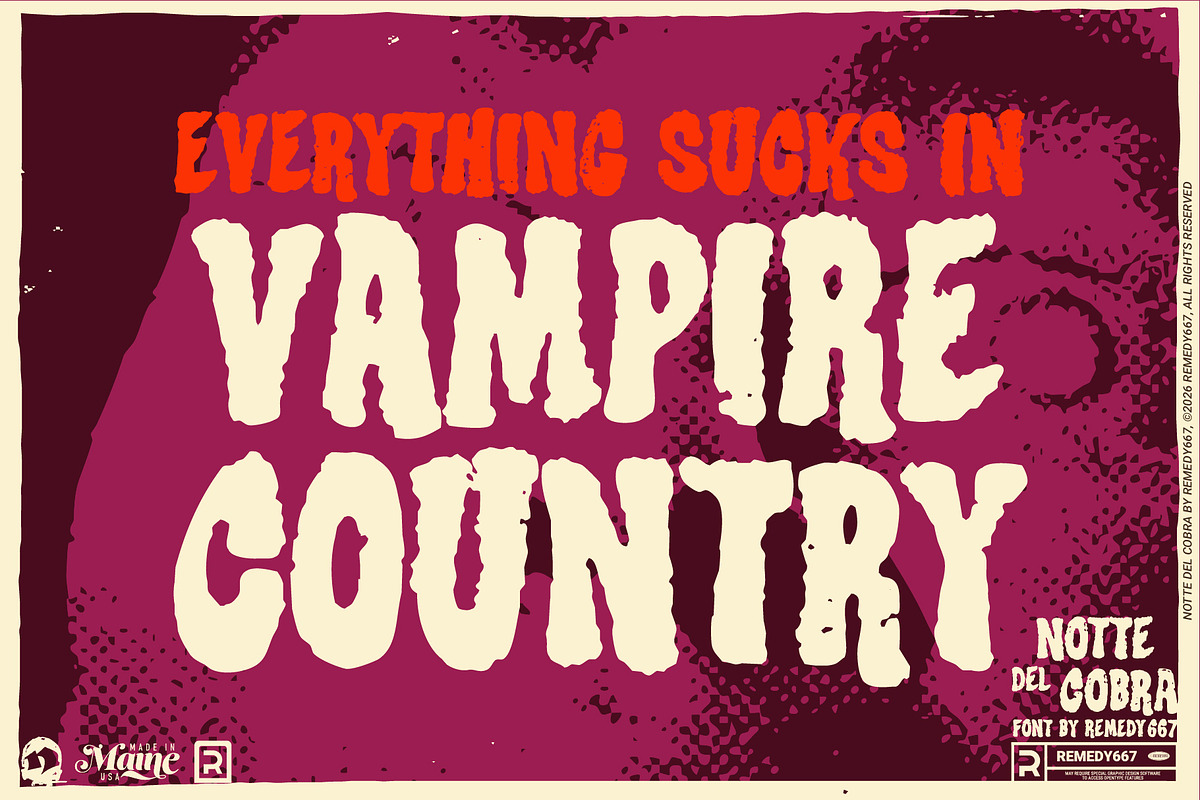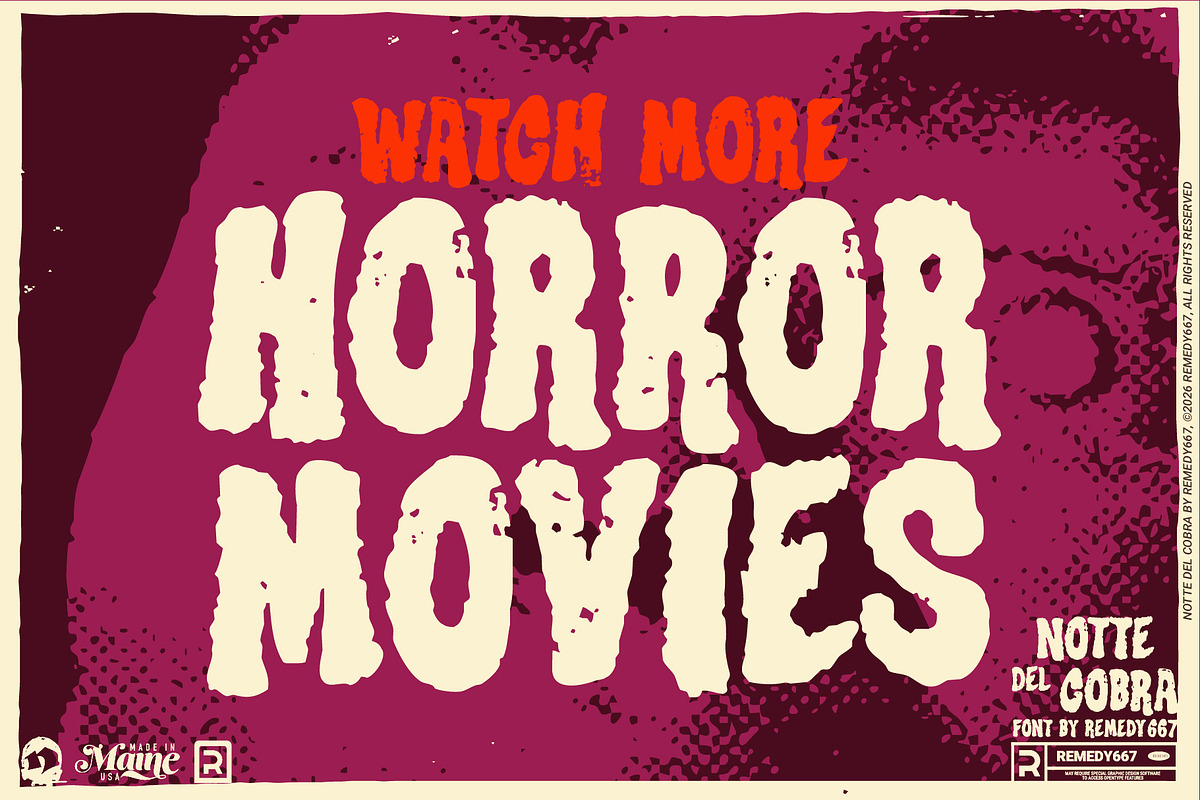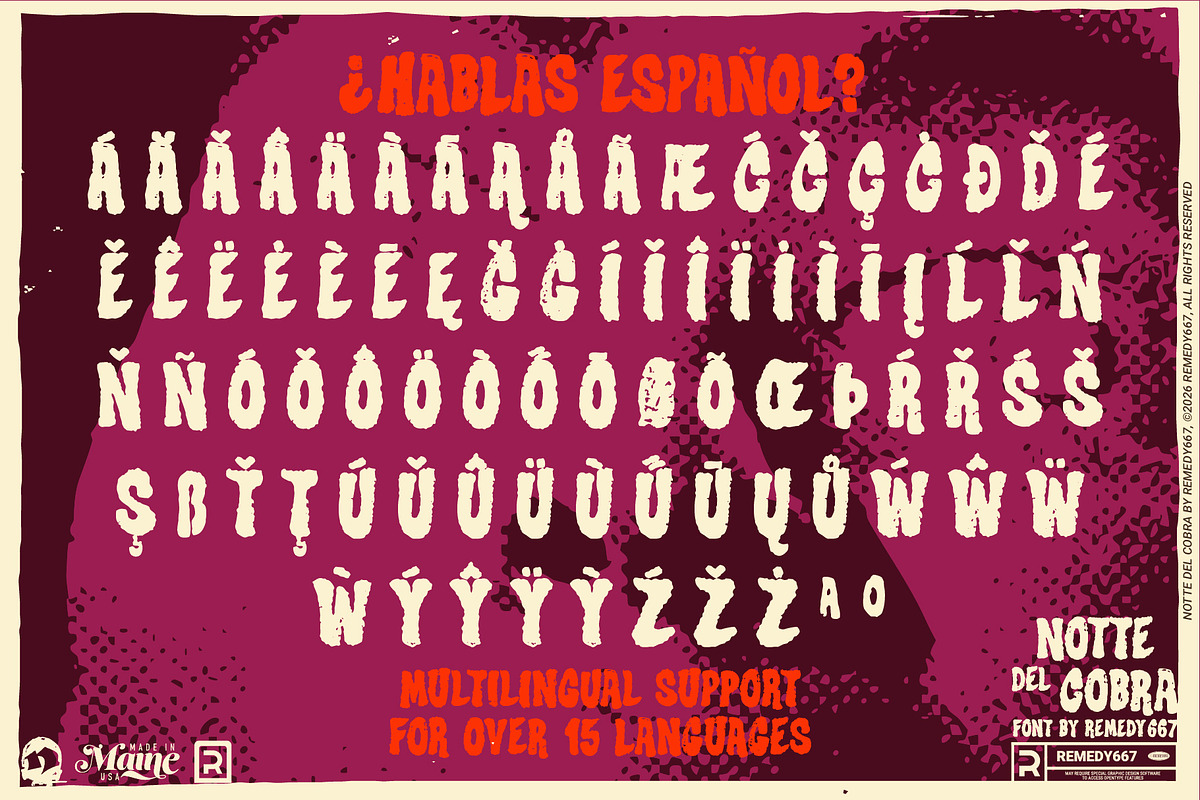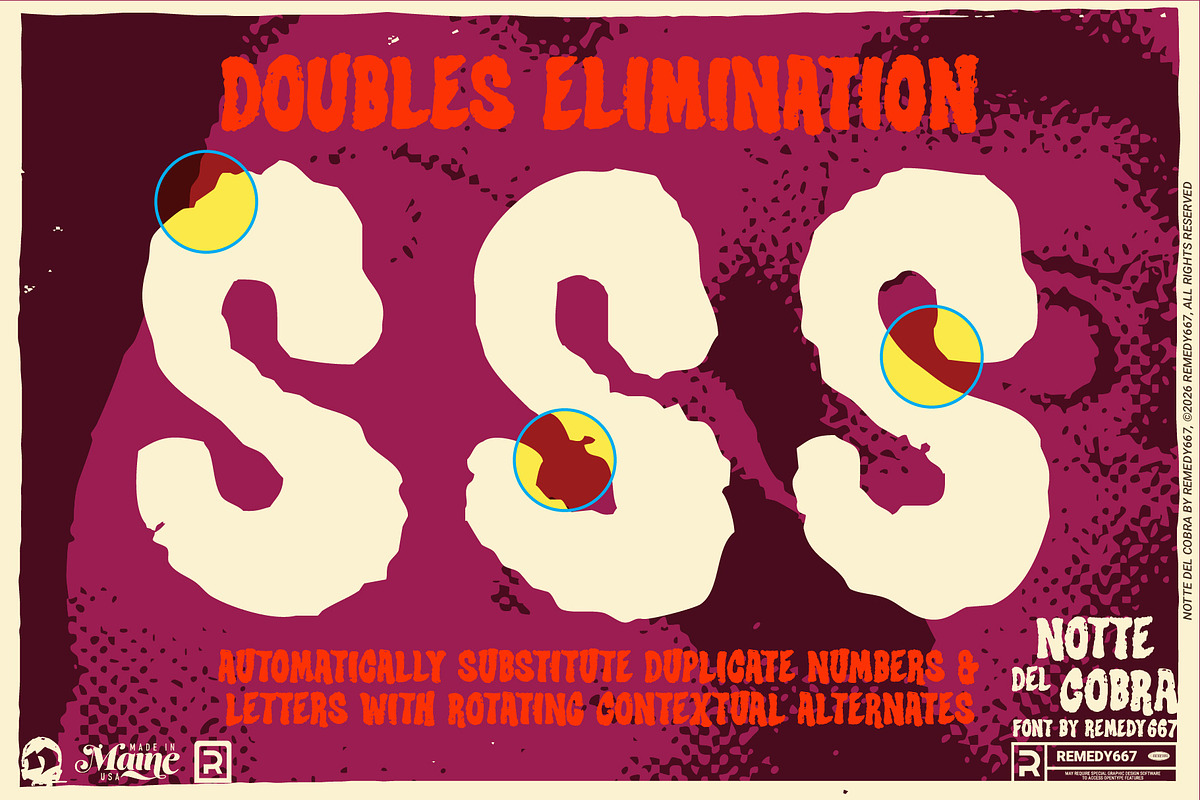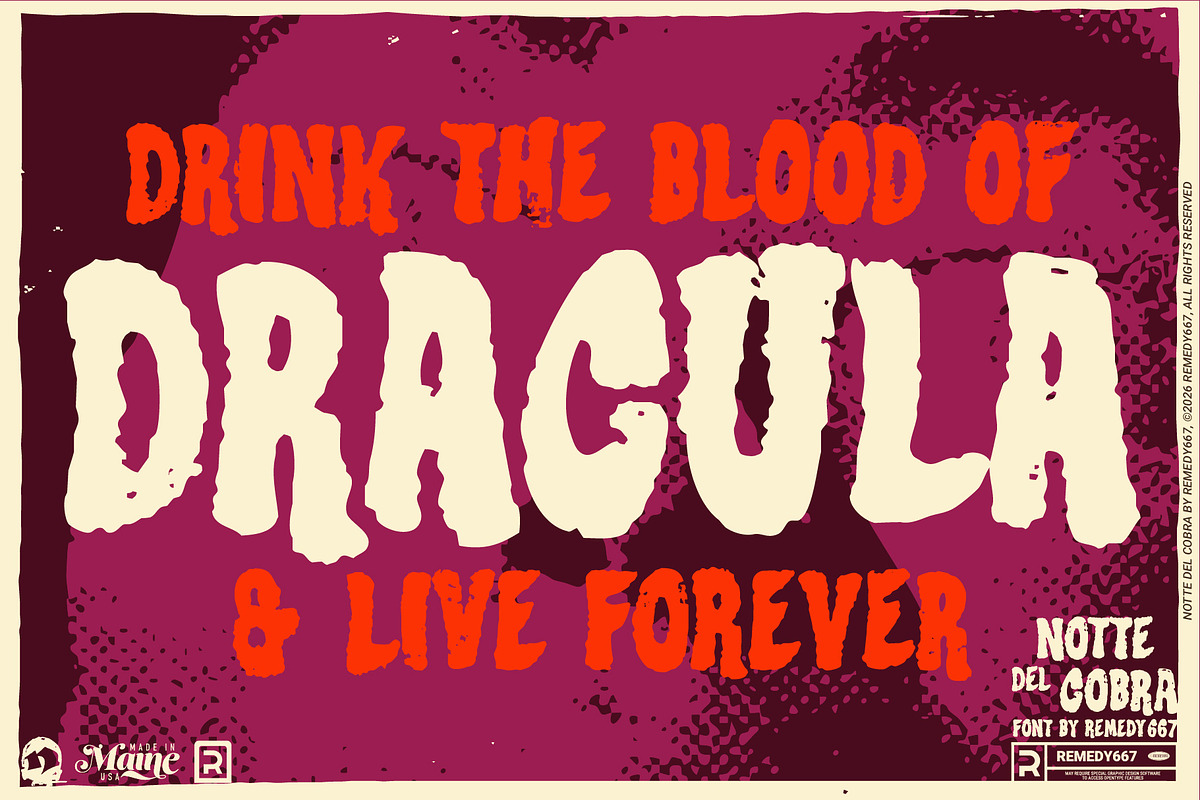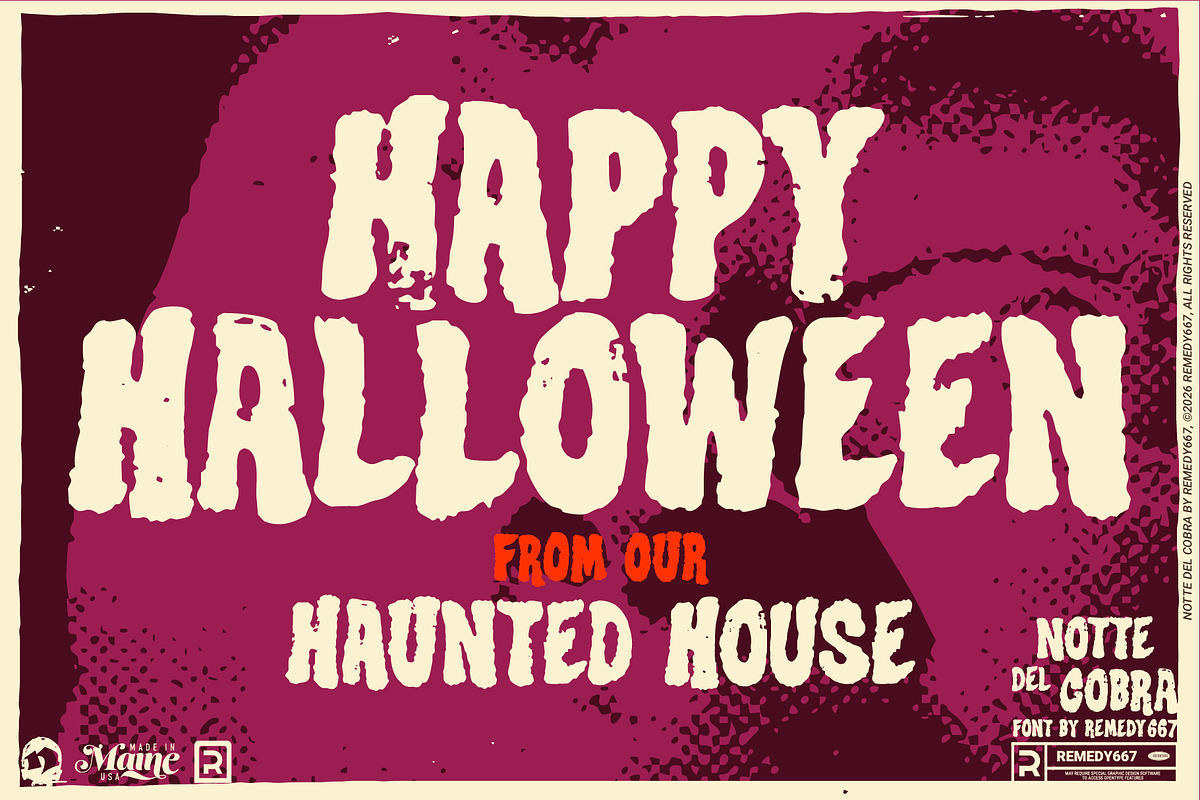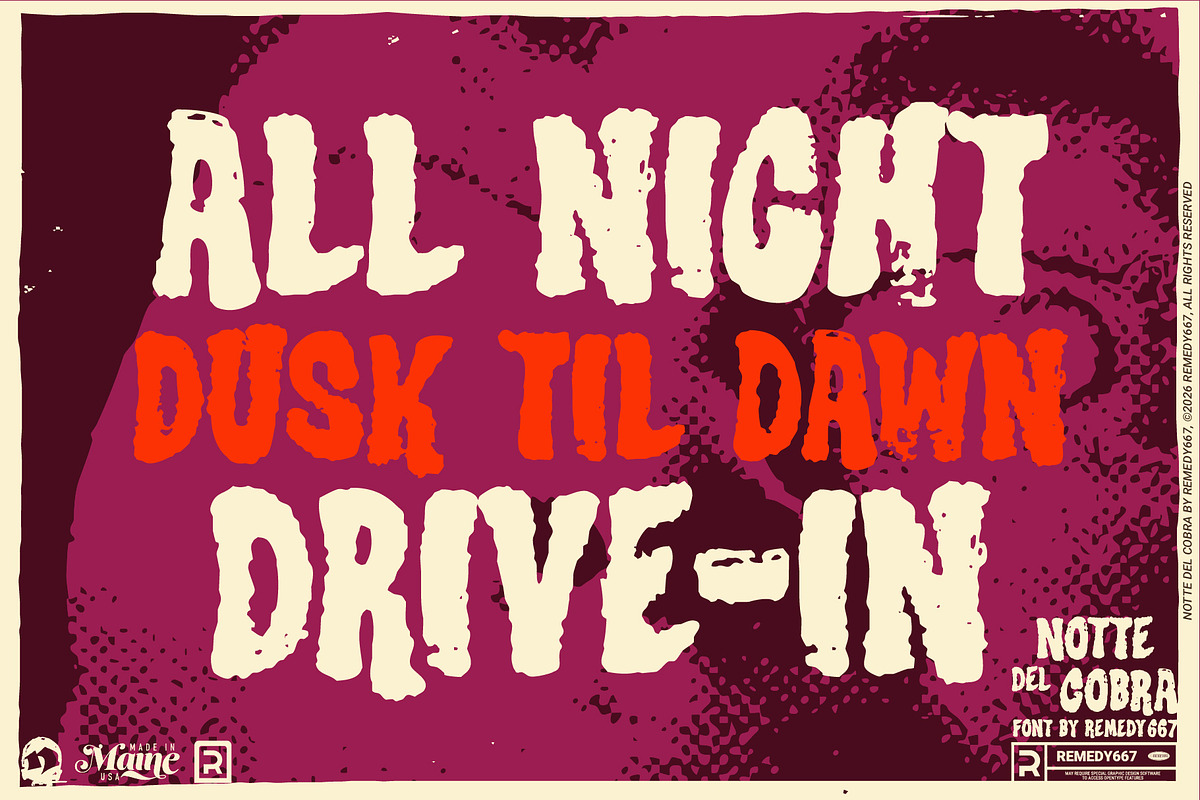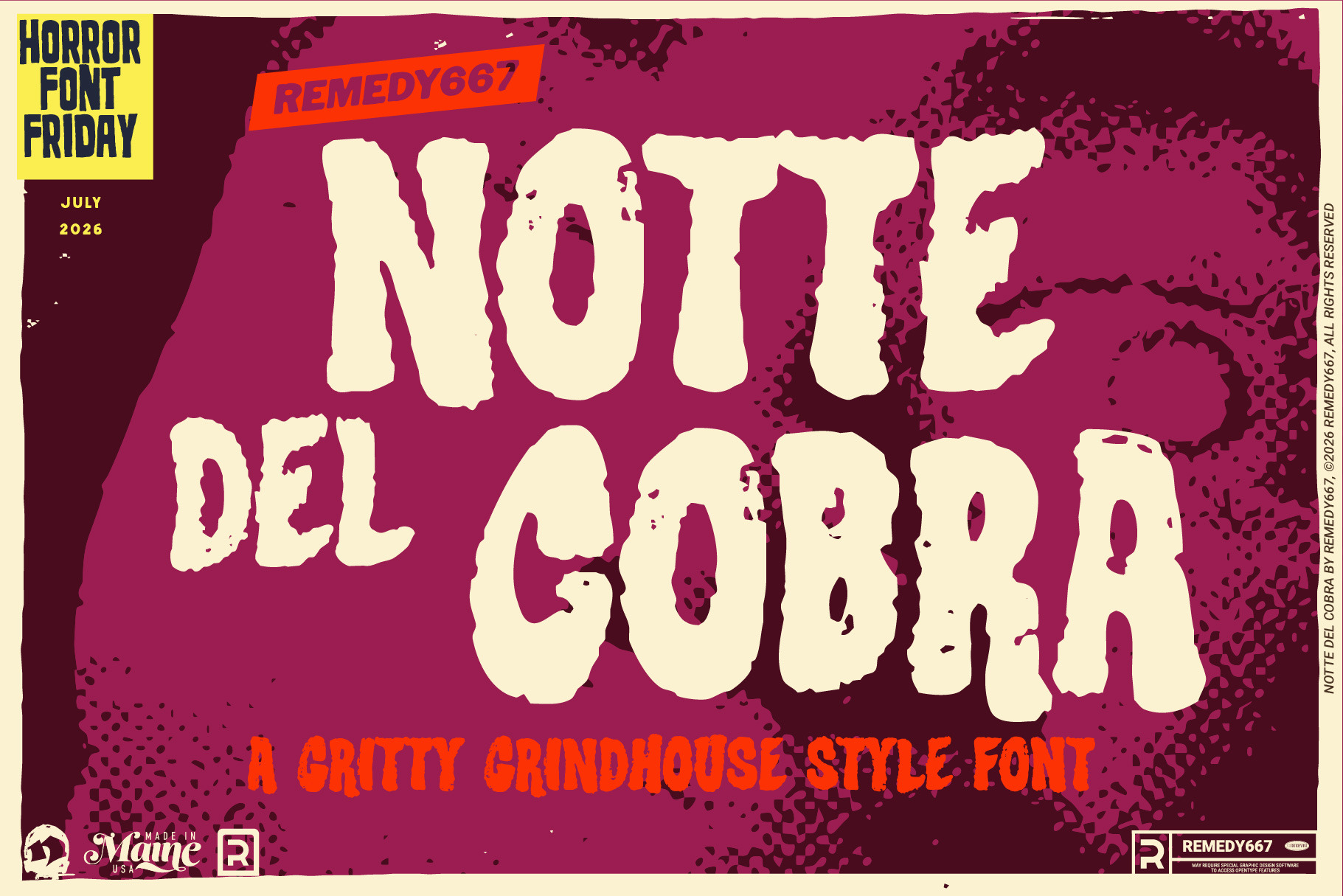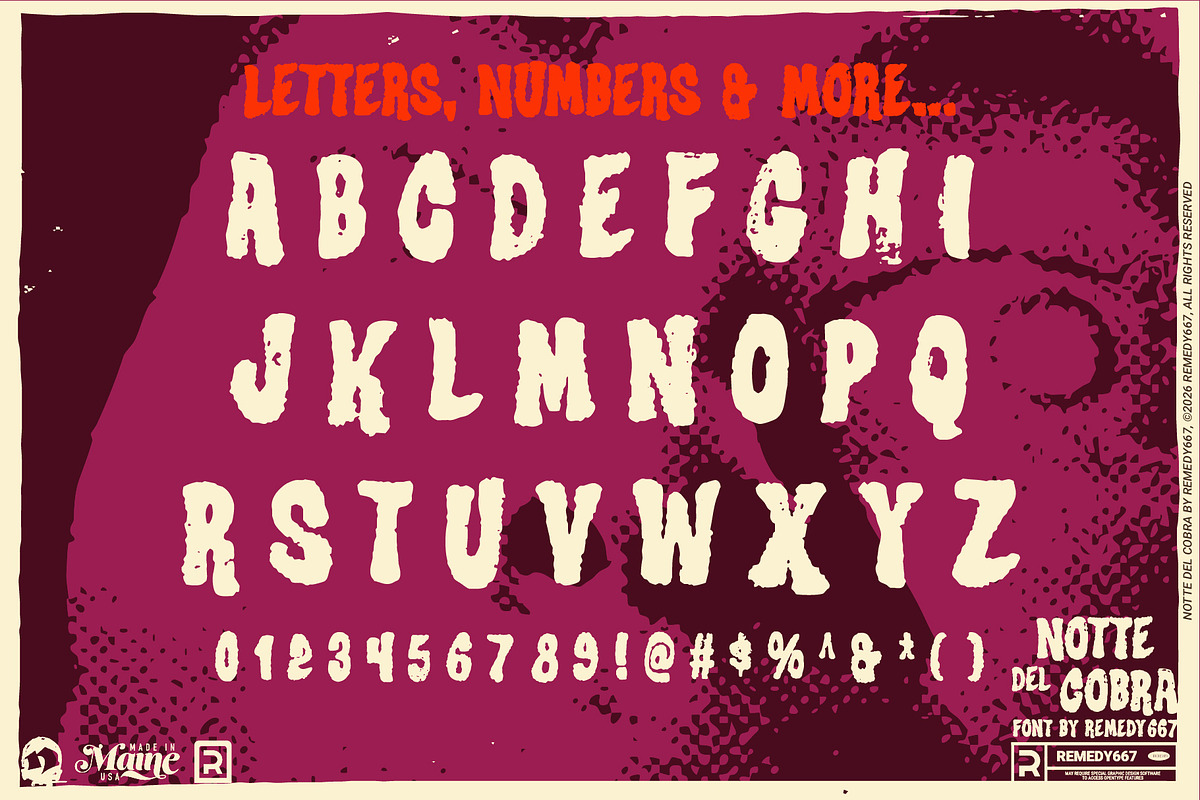
Notte del Cobra - Grindhouse Font
The midnight projector flickers… the film crackles… and Notte del Cobra flashes across the screen! Out of the shadows with all the grime, grit, and psychedelic menace of a grindhouse classic. Inspired by lettering from the Night of the Cobra Woman pressbook, Notte del Cobra captures the rough, photocopied charm of vintage exploitation cinema.
Perfect for retro posters, fuzzed-out album covers, underground zines, or anything craving a healthy dose of sleaze. Shed your clean, respectable typography and embrace Notte del Cobra.
Rotating letters and numbers for a more natural, distressed appearance.
Extensive multilingual language support.
Inspired by vintage grindhouse and psychedelic horror lettering.
Perfect for horror, exploitation, grunge, photocopy, and retro print-inspired designs.